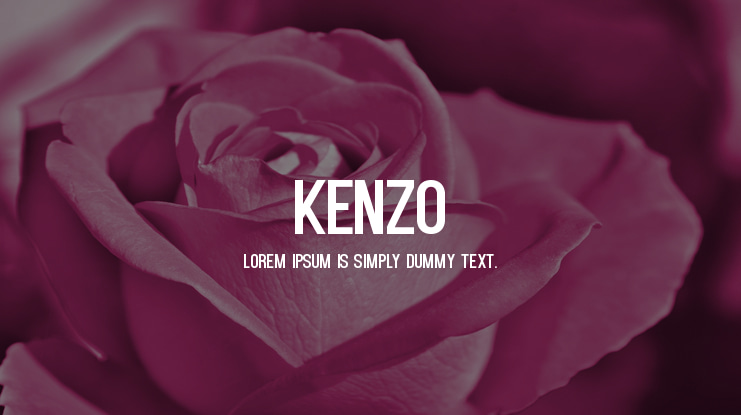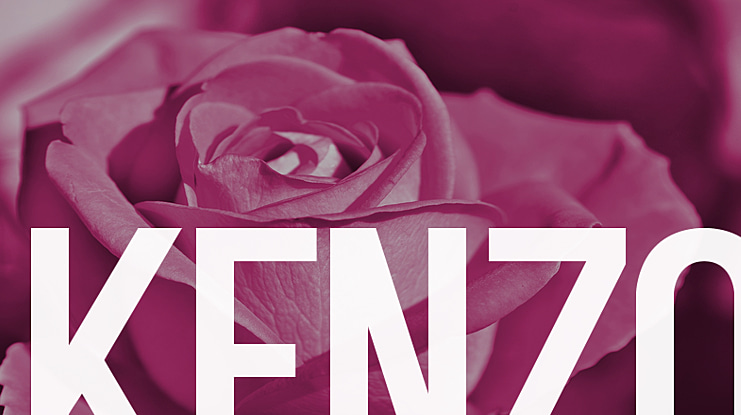
Kenzo Font Family
Frank Hemmekam
Kenzo is an free uppercase display typeface. This font is perfect for usage in posters/logotypes and headlines. License: This Typeface is free for personal use and commercial use. Send me some images of you're project using the font Kenzo. I am really interested!